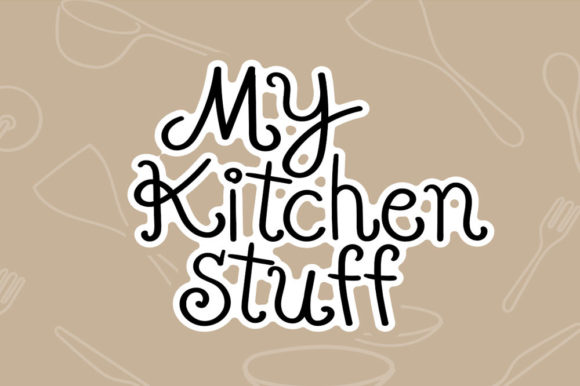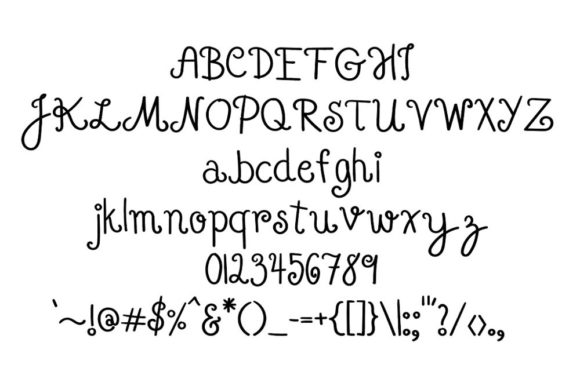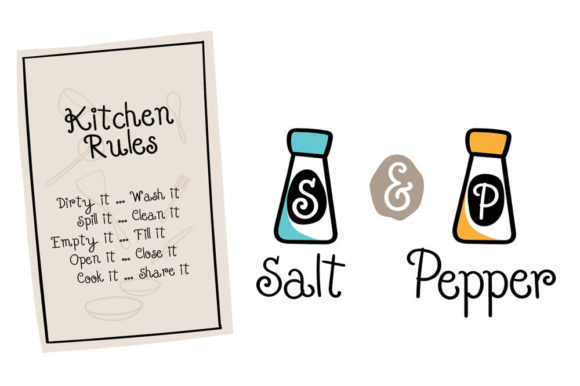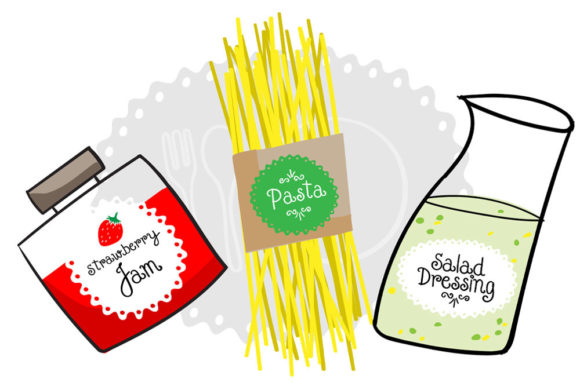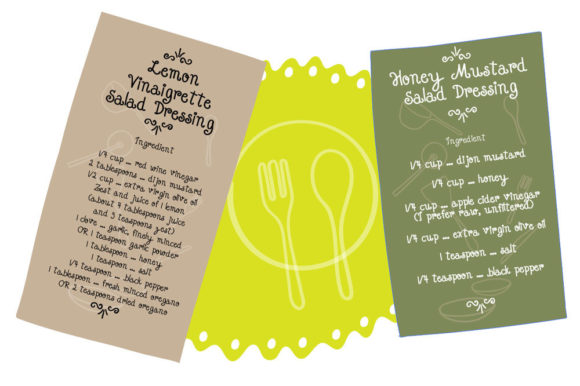
My Kitchen Stuff Font
About My Kitchen Stuff Font
My Kitchen Stuff is a fun and curvy handwritten font that brings a lively and charming character to your designs. With its uneven letters and interestingly unique style, this font is the perfect representation for your most creative designs.
The fun and curvy nature of My Kitchen Stuff adds a playful and energetic touch to your projects. Each letter carries its own delightful personality, creating a lively and dynamic composition. Whether you’re designing recipe cards, food blogs, packaging, or any other culinary-themed project, My Kitchen Stuff captures the spirit of creativity.
The uneven letters of My Kitchen Stuff contribute to its charm and individuality. This font stands out with its distinctive and hand-drawn appearance, making it a perfect choice for adding a personal and artistic touch to your designs. Its quirks and irregularities bring a sense of authenticity and character.
My Kitchen Stuff is designed to spark creativity and bring a sense of joy to your designs. Its lively and charming character sets the stage for imaginative and expressive creations. Whether you’re working on branding for a cooking-related business or creating custom kitchen labels, this font adds a touch of playfulness and personality.
In summary, My Kitchen Stuff is a fun and curvy handwritten font that represents creativity with its unique and charming character. Its uneven letters and interesting style make it the perfect choice for your most imaginative designs. Embrace the lively nature of My Kitchen Stuff and let it bring joy and authenticity to your creative projects.